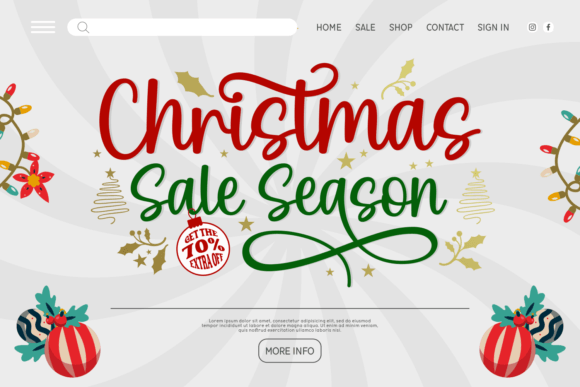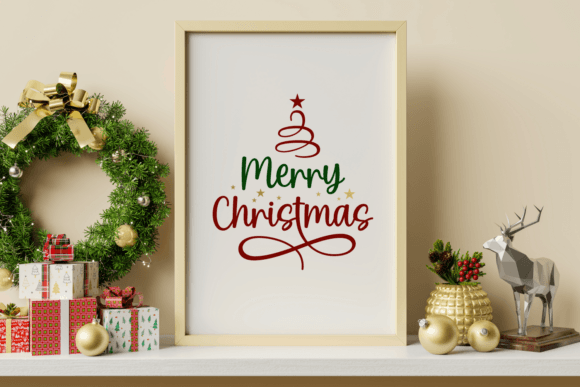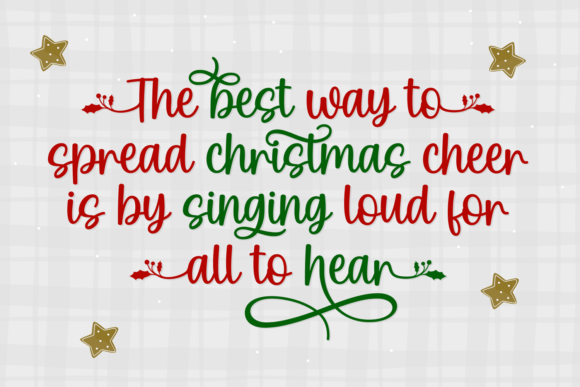
Christmas Scents Font
Christmas Scents is a charming handwritten font that captures the festive spirit with its delicate mistletoe swashes. This font brings a touch of holiday magic to your projects, perfect for greeting cards, invitations, and seasonal designs.